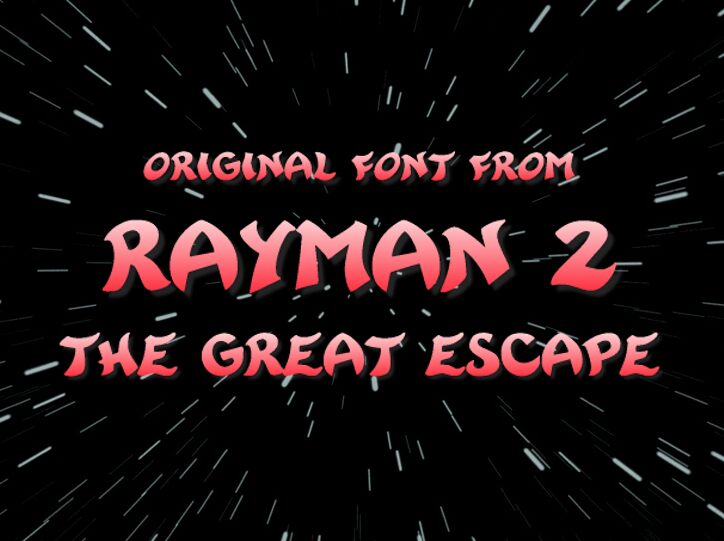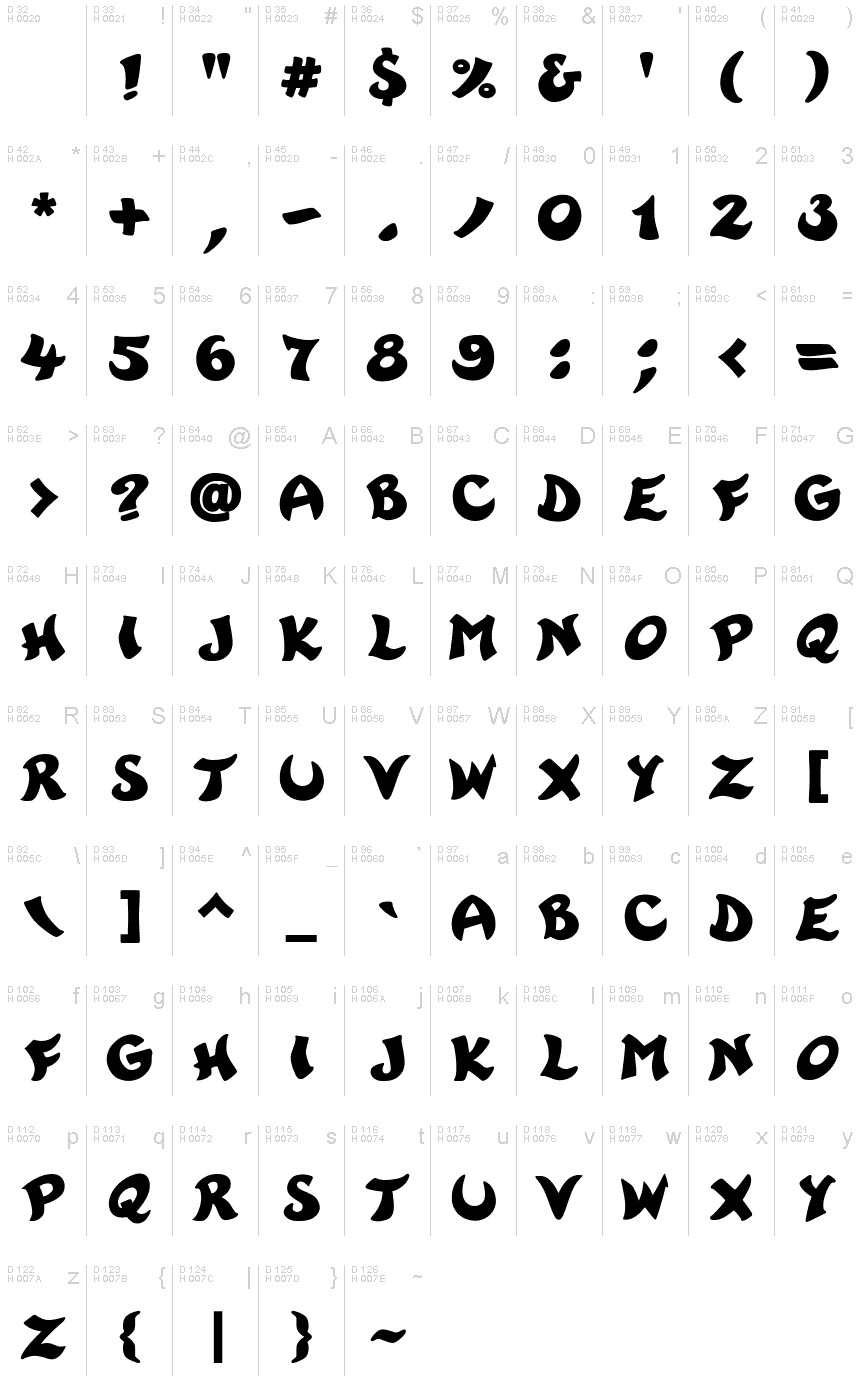
Rayman 2 Bold
Rayman 2 Bold font is a cartoon typeface designed by absynthe1812.
This font is originally from a Ubisoft video game by the name of "Rayman 2: The Great Escape." However, the game developers never released this font for download so I took the time to put it into a downloadable format.